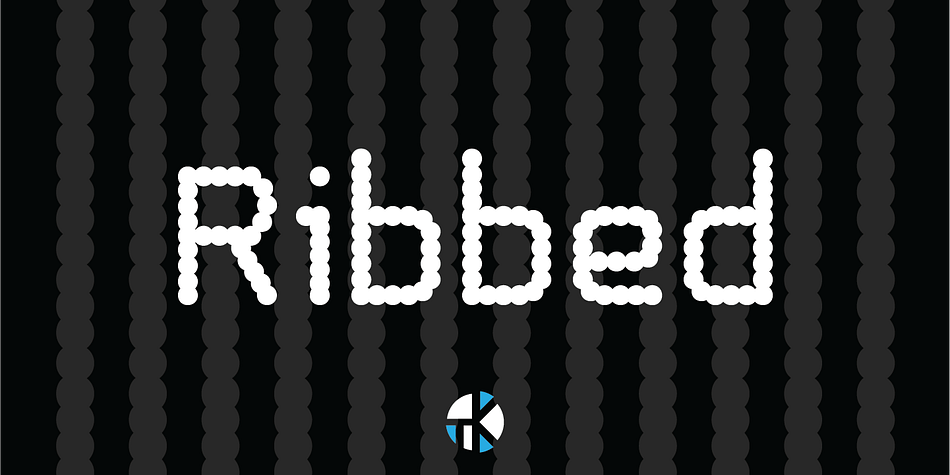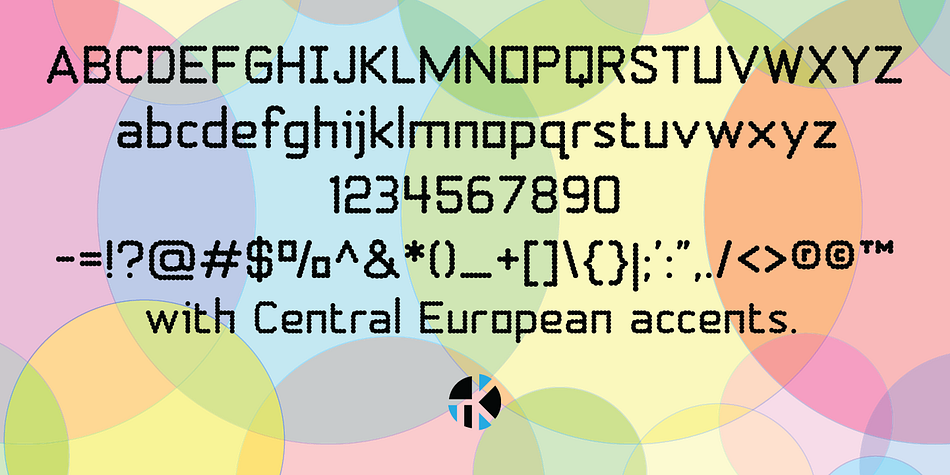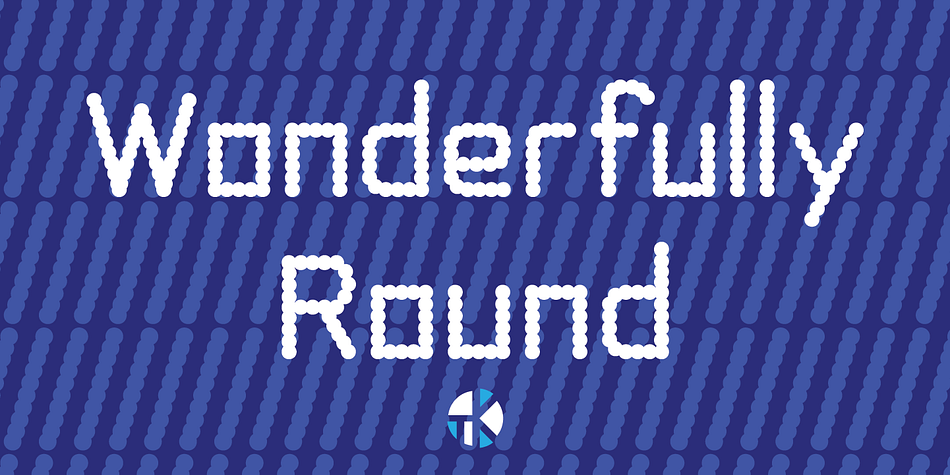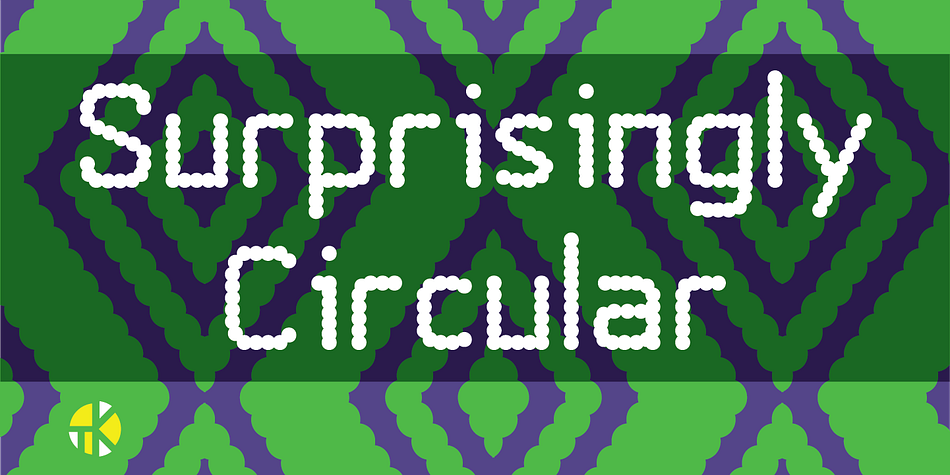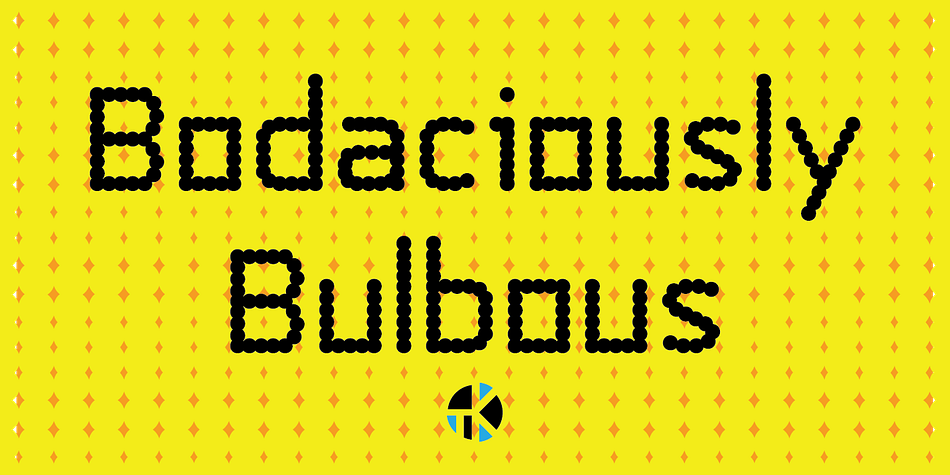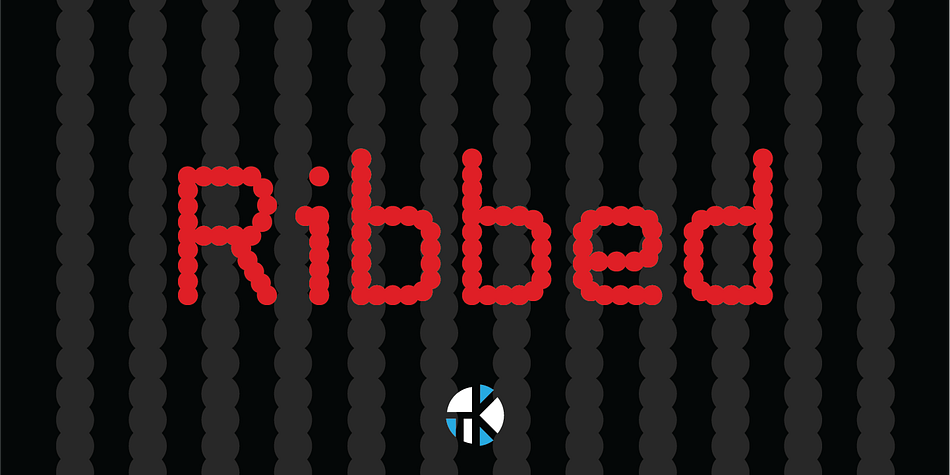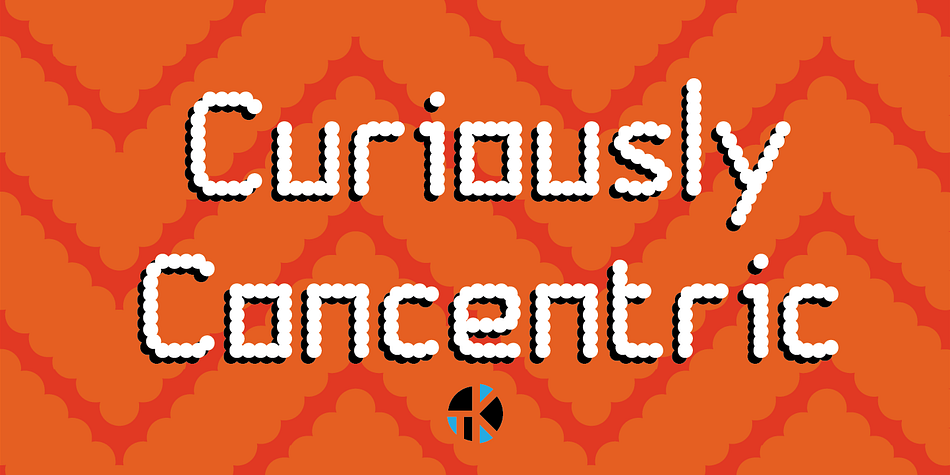
Ribbed is a display font published by Typekirk.
Ribbed is a pleasurable sans serif typeface endowed with a fulfilling complete character set. Ribbed serves up surprising typographic sensations that can raise eyebrows and give uncommon delight. Includes full character set, with Central European accents and symbols. Be sure to pick up too.